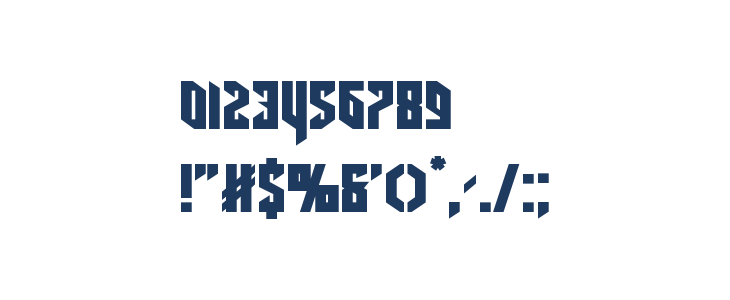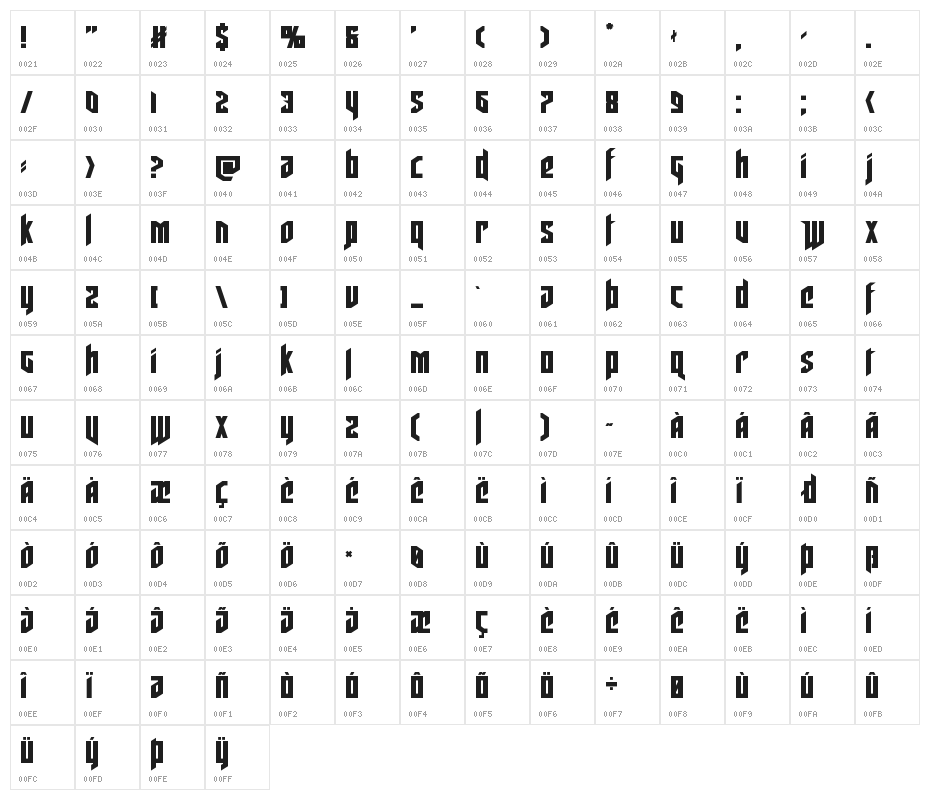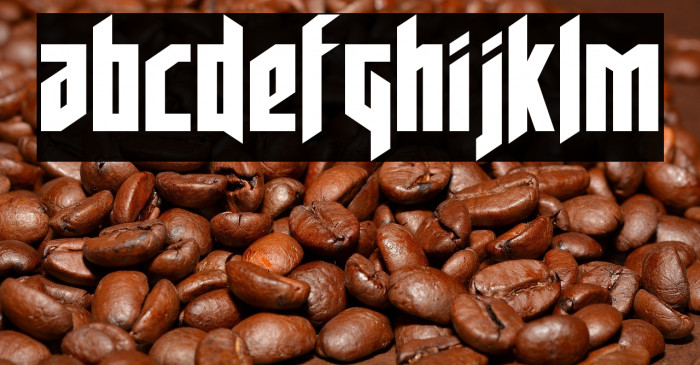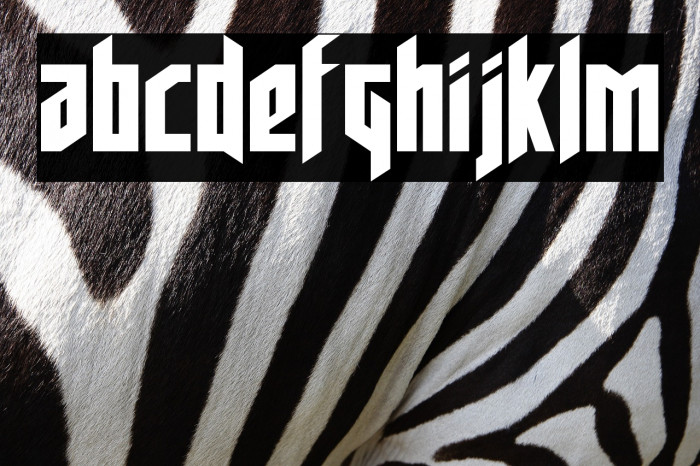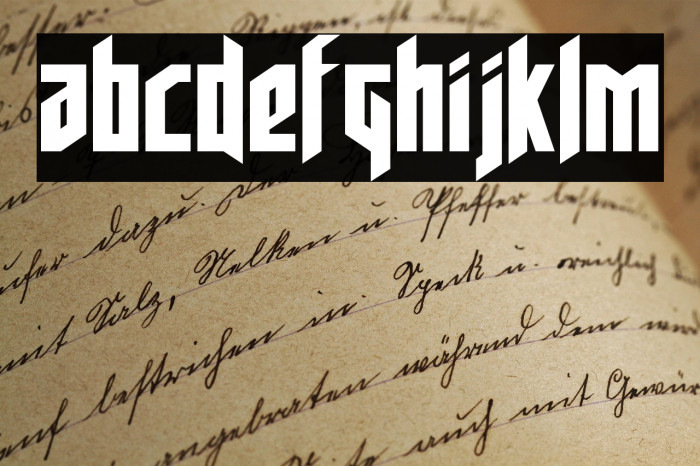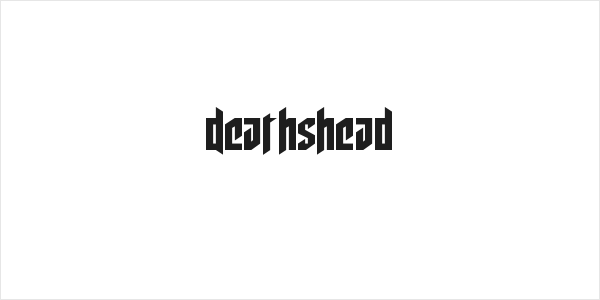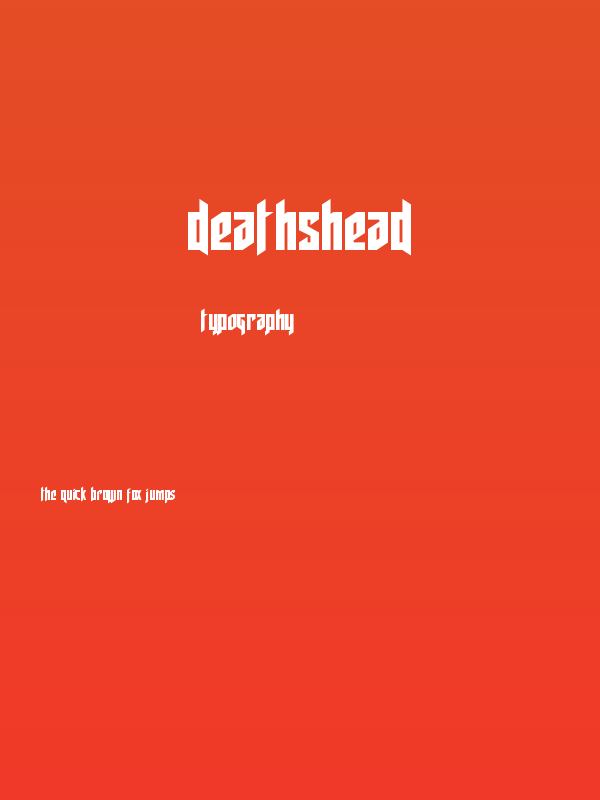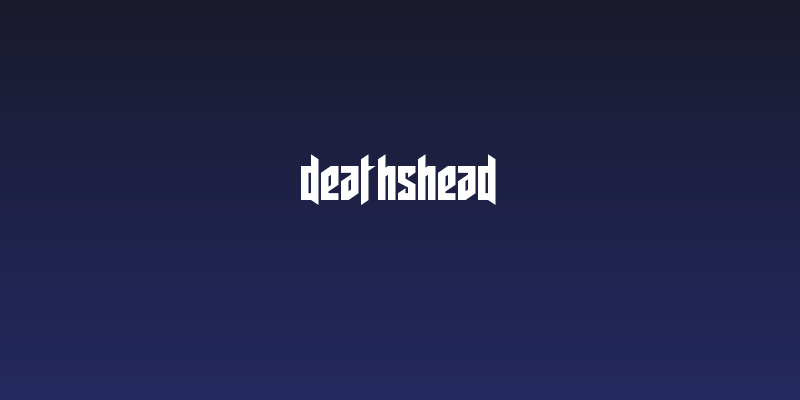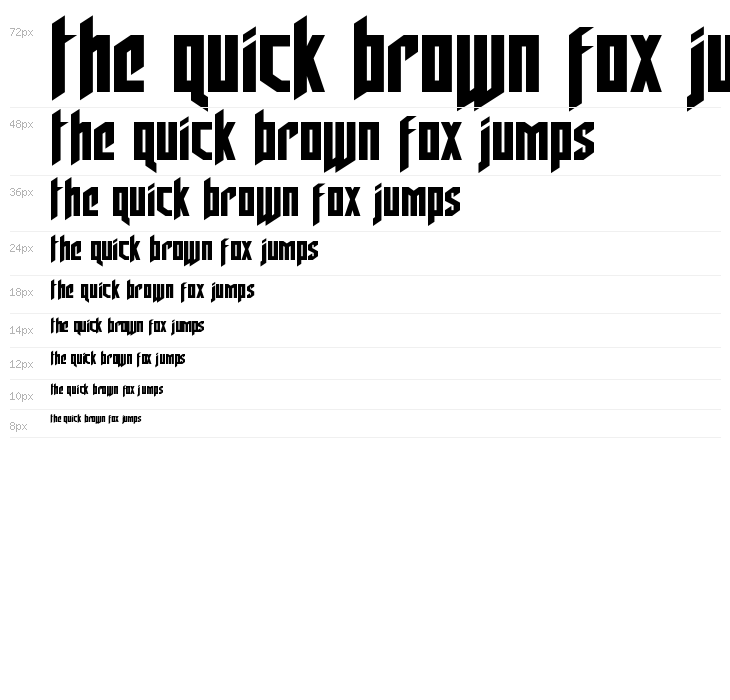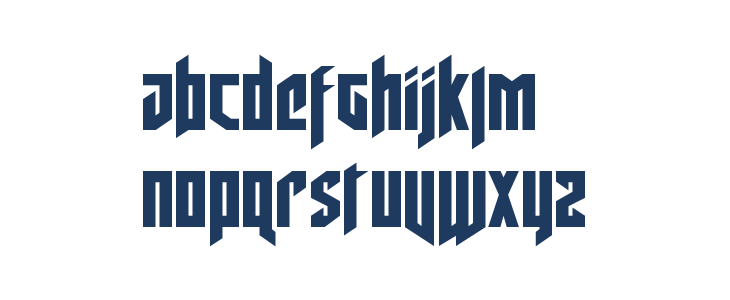
Deathshead Font
Deathshead Description
This font features a bold and striking design with sharp, angular edges and a gothic influence. The characters are heavily stylized, creating a dramatic and intense appearance. The uppercase and lowercase letters maintain a consistent geometric form, while the numbers and special characters follow the same bold aesthetic. The font's strong visual impact makes it suitable for attention-grabbing designs. Its unique style is reminiscent of medieval or fantasy themes, making it ideal for projects that require a distinctive and powerful typeface.
| Use Case | Logos, Posters, Titles |
| Proposed Projects | Ideal for use in fantasy-themed posters, video game titles, heavy metal band logos, and other projects requiring a strong, distinctive typeface. |